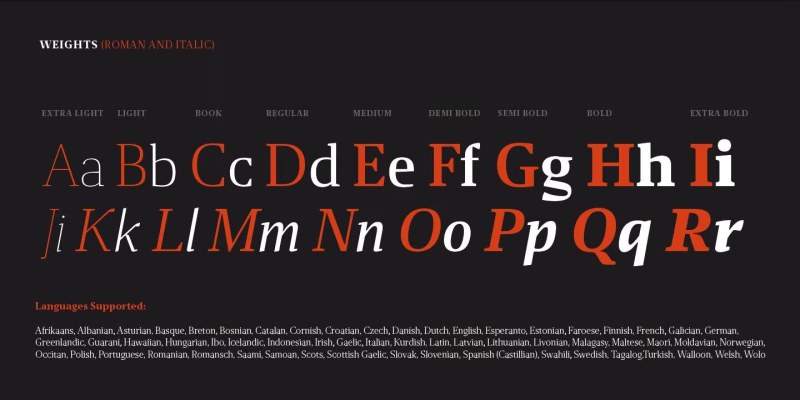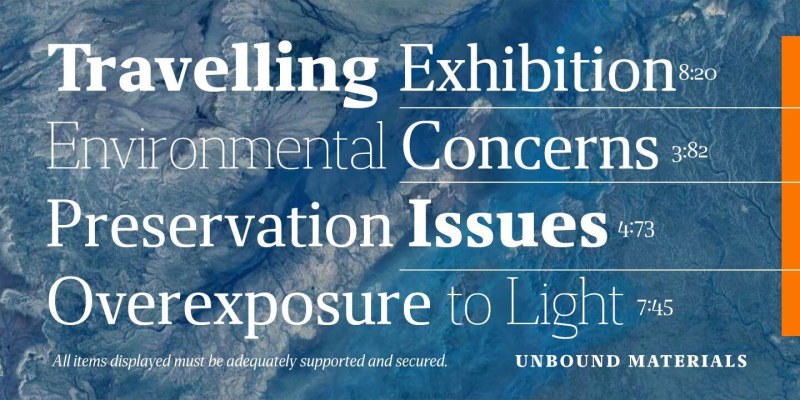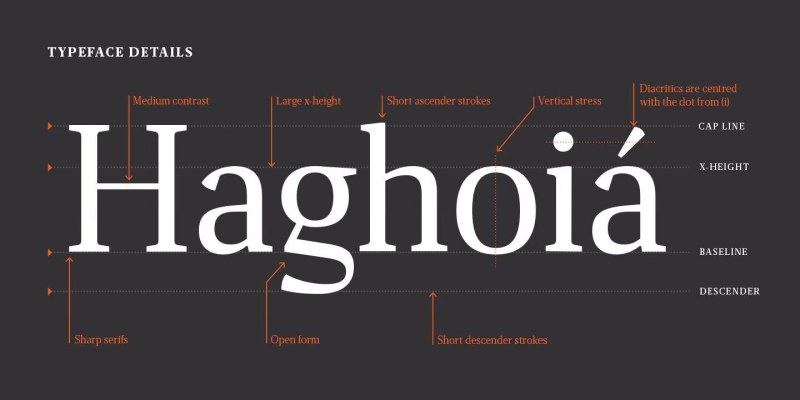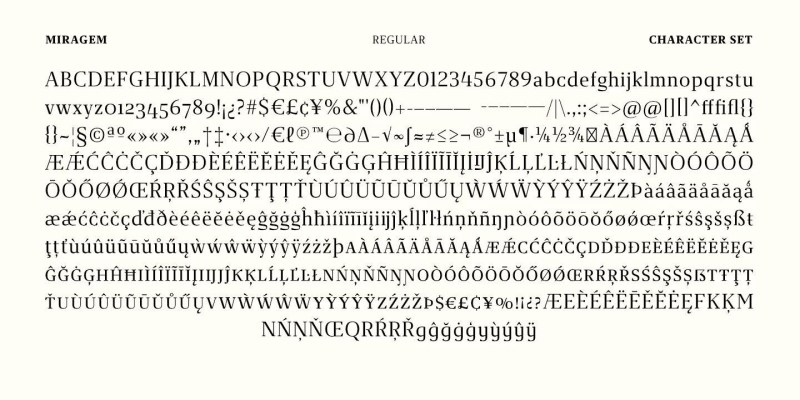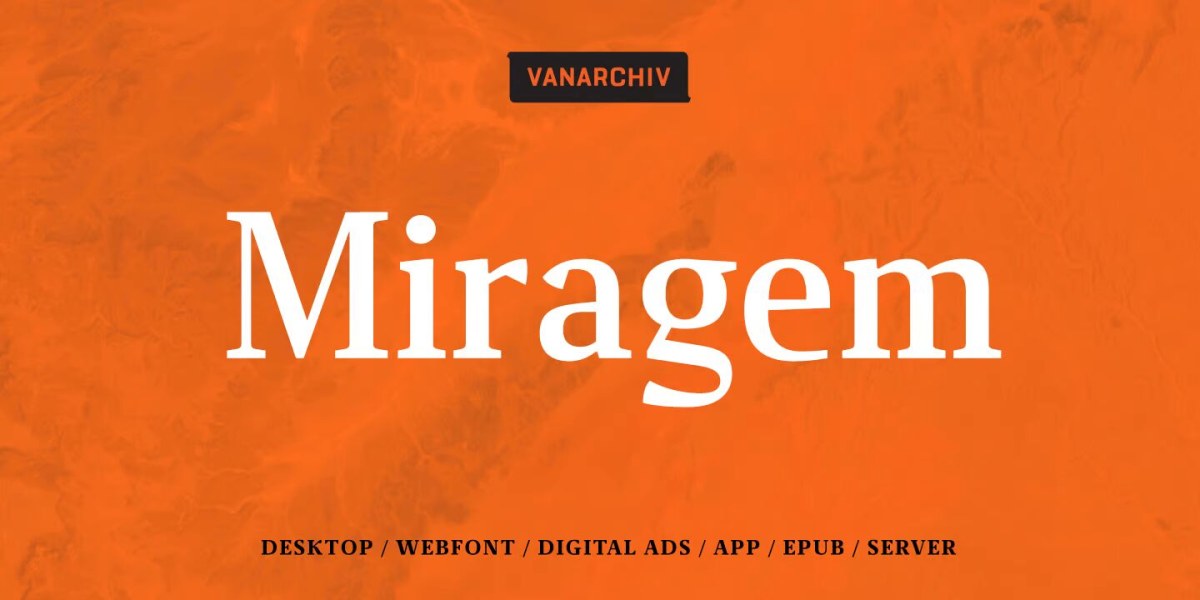
Miragem Font Family
This serif typeface was designed to be simple and neutral in text sizes. The descender proportions are short, and the x-height is large. The lowercase italics contain a…
This serif typeface was designed to be simple and neutral in text sizes. The descender proportions are short, and the x-height is large. The lowercase italics contain a different structure from Roman characters, but the most distinctive detail is that the ascender and descender strokes don’t contain serifs. Italic characters are slightly more narrow and condensed than Roman letterforms.
Where Miragem Font Family works best
Miragem Font Family gives long-form text a classic, trustworthy rhythm — ideal for magazine spreads, annual reports and book interiors.
Pair Miragem Font Family with generous letter-spacing for wordmarks in fashion, hospitality, wine and jewellery branding.
Use Miragem Font Family for slide titles in Keynote, PowerPoint or Google Slides to add authority without looking dated.
What is Miragem Font Family good for?